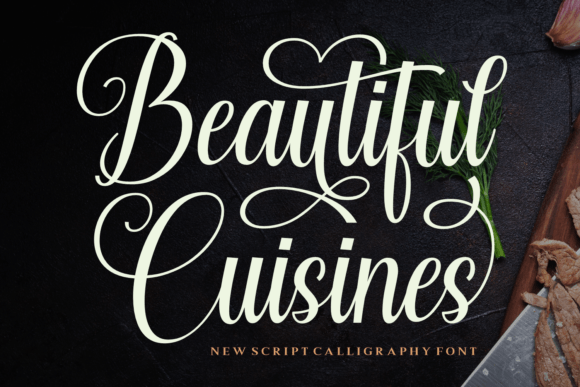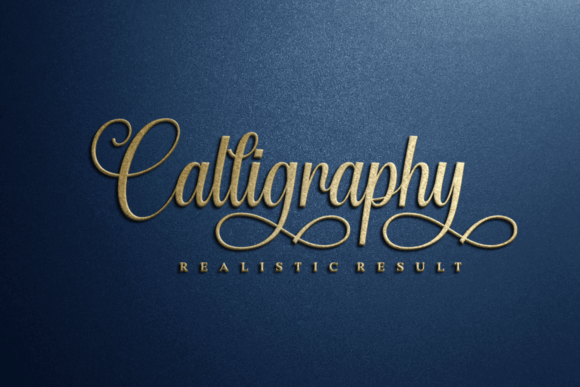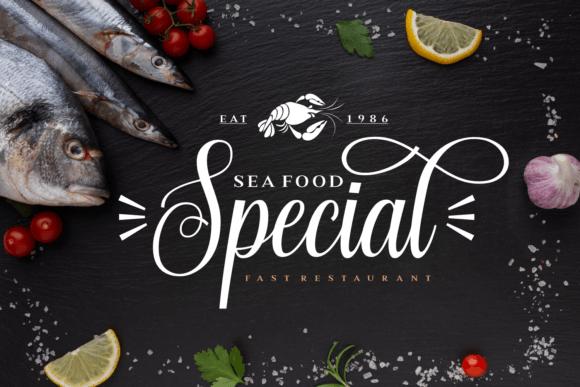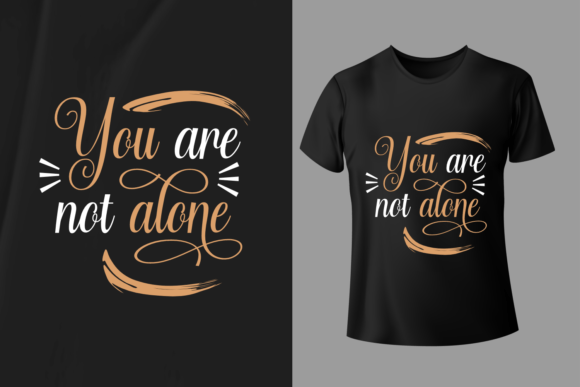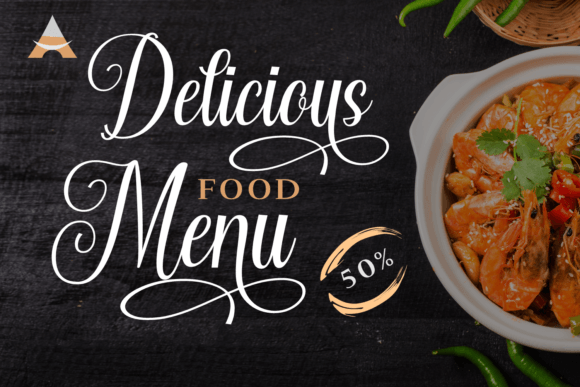
Beautiful Cuisines Font
The Beautiful Cuisines Font Download is a dazzling and highly detailed script designed to add sophistication to your creative work. Neatly crafted with elegant strokes, this font blends luxury and usability, making it a wonderful asset to any designer’s library. Because it is PUA encoded, you can access all glyphs and swashes with ease, giving you full creative control over your projects.
A Script with Dazzling Elegance
The Beautiful Cuisines script font combines detailed handcrafted elements with a balanced design. As a result, it feels refined, stylish, and versatile. Furthermore, it adapts seamlessly across different design categories, from small-scale stationery to large promotional displays.
Handwritten script fonts always add intimacy and elegance. The Beautiful Cuisines Font is perfect for wedding invitations, thank you notes, birthday cards, and holiday greetings. Because of its carefully detailed structure, every card looks polished and heartfelt. In addition, it ensures that your stationery projects leave a lasting impression.
Branding and Logo Design with Beautiful Cuisines Font
Typography defines a brand’s personality. The Beautiful Cuisines handwritten font works beautifully for boutique logos, product packaging, and marketing campaigns. Its elegant strokes bring a refined and approachable tone. Therefore, it is especially effective for fashion, lifestyle, and luxury brands.
Posters, Titles, and Editorial Projects
The Beautiful Cuisines Font Download also shines in posters, magazines, and banners. It remains clear and stylish at all sizes while adding handwritten sophistication. Consequently, it is a great choice for designers who want creativity paired with clarity.
In today’s fast-paced online space, fonts must adapt across platforms. The Beautiful Cuisines typeface integrates perfectly into Instagram posts, YouTube thumbnails, Pinterest boards, and blogs. Because of its elegant handwritten charm, it ensures digital projects look modern and engaging.
Why Designers Choose Beautiful Cuisines Typeface
Designers value fonts that balance detail with usability. The Beautiful Cuisines handwritten script keeps its decorative personality while staying legible. This makes it suitable for both professionals and hobbyists. Moreover, its timeless handwritten elegance ensures it will remain trendy in future projects.